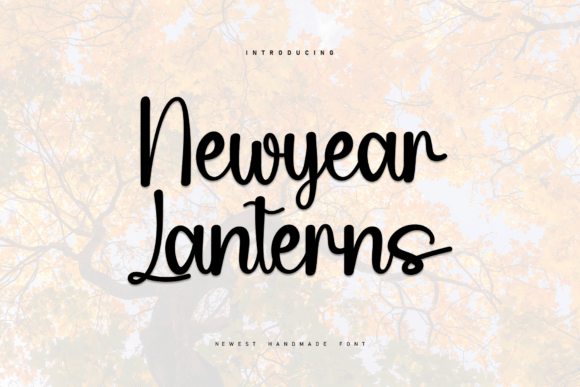
Introducing Newyear Lanterns Font: The Perfect Blend of Elegance and Casualness
Are you looking for a font that exudes luxury and elegance while still maintaining a casual and sporty vibe? Look no further than Newyear Lanterns Font. This beautiful handwritten font is designed to give your designs a unique and sophisticated touch. In this article, we’ll dive into the features and benefits of Newyear Lanterns Font and explore its various uses in design.
What is Newyear Lanterns Font?
Newyear Lanterns Font is a handwritten font that looks like it was drawn with a marker. Its relaxed and sporty feel makes it perfect for a wide range of design applications. The font’s unique style is characterized by its smooth, flowing lines and subtle imperfections, giving it a human touch that’s hard to replicate with traditional fonts.
Key Features of Newyear Lanterns Font
- Handwritten style: Newyear Lanterns Font has a beautiful, handwritten style that’s perfect for designs that require a personal touch.
- Marker-like texture: The font’s texture resembles that of a marker, giving it a unique and distinctive look.
- Relaxed and sporty feel: Newyear Lanterns Font has a relaxed and sporty vibe that’s perfect for designs that require a casual touch.
- Luxurious and elegant: Despite its casual feel, Newyear Lanterns Font exudes luxury and elegance, making it perfect for high-end designs.
Uses of Newyear Lanterns Font
Newyear Lanterns Font is a versatile font that can be used in a wide range of design applications. Here are some of the most popular uses of this beautiful font:
- Branding: Newyear Lanterns Font is perfect for branding designs that require a unique and sophisticated touch.
- Logos: The font’s luxurious and elegant feel makes it perfect for logo designs that require a high-end look.
- Wedding supplies: Newyear Lanterns Font is a popular choice for wedding supplies such as invitations, programs, and place cards.
- Greeting cards: The font’s casual and elegant feel makes it perfect for greeting cards for special occasions.
- Fashion: Newyear Lanterns Font is a popular choice for fashion designs such as lookbooks, catalogs, and advertisements.
- Marketing promotions: The font’s luxurious and elegant feel makes it perfect for marketing promotions such as brochures, flyers, and posters.
Benefits of Using Newyear Lanterns Font
There are many benefits to using Newyear Lanterns Font in your designs. Here are some of the most significant advantages:
- Unique and distinctive look: Newyear Lanterns Font has a unique and distinctive look that sets it apart from traditional fonts.
- Versatility: The font’s versatility makes it perfect for a wide range of design applications.
- Elegance and sophistication: Newyear Lanterns Font exudes elegance and sophistication, making it perfect for high-end designs.
- Casual and relaxed feel: The font’s casual and relaxed feel makes it perfect for designs that require a personal touch.
Tips for Using Newyear Lanterns Font
Here are some tips for using Newyear Lanterns Font in your designs:
- Use it sparingly: Newyear Lanterns Font is a bold and distinctive font, so use it sparingly to avoid overwhelming your design.
- Pair it with other fonts: The font pairs well with other fonts, so experiment with different combinations to find the perfect look.
- Adjust the size and color: Adjust the size and color of the font to suit your design needs.
- Experiment with different effects: Experiment with different effects such as texture, gradient, and shadow to add depth and interest to your design.
Newyear Lanterns Font is a beautiful and versatile font that’s perfect for designs that require a unique and sophisticated touch. Its luxurious and elegant feel, combined with its casual and relaxed vibe, makes it perfect for a wide range of design applications. Whether you’re designing a logo, branding materials, or marketing promotions, Newyear Lanterns Font is a great choice.
- What is Newyear Lanterns Font?: Newyear Lanterns Font is a handwritten font that looks like it was drawn with a marker.
- What are the uses of Newyear Lanterns Font?: Newyear Lanterns Font can be used in a wide range of design applications, including branding, logos, wedding supplies, greeting cards, fashion, and marketing promotions.
- What are the benefits of using Newyear Lanterns Font?: The benefits of using Newyear Lanterns Font include its unique and distinctive look, versatility, elegance and sophistication, and casual and relaxed feel.